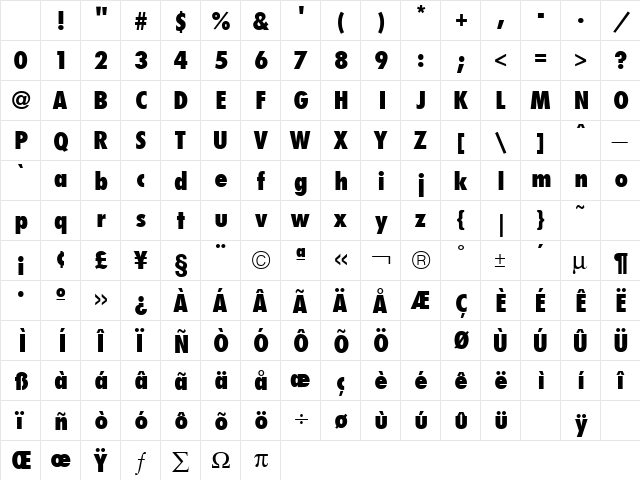
Futura Condensed Extra Bold Regular
Complete Futura Condensed Extra Bold Regular glyph index. Displaying only characters natively supported by Futura Condensed Extra Bold Regular font.
Design Context for Futura Condensed Extra Bold
Futura Condensed Extra Bold has a distinctly futuristic character, with geometric precision and clean angles that feel at home in technology, gaming, and sci-fi contexts. Its bold stroke weight gives it real presence on the page. Its narrow stance lets it pack a punch even in space-constrained designs.
Pro Tip: Try Futura Condensed Extra Bold with generous letter-spacing in UI labels and navigation - the geometric forms benefit from room to breathe.